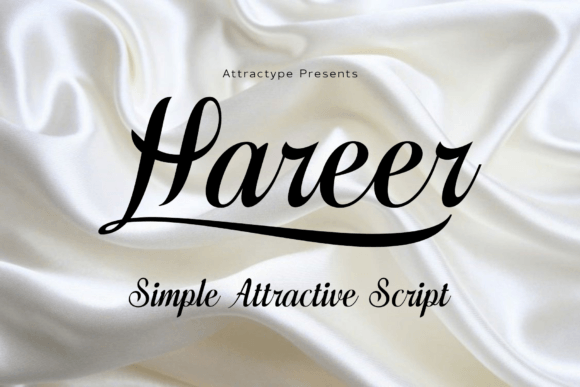
Have you ever stared at a blank page, desperately searching for the perfect font to bring your design to life? You know the feeling – it’s like trying to find the missing piece of a puzzle. But what if you stumbled upon a font that makes your text look effortlessly beautiful, every time? Enter the Hareer Font, a stunning script font designed to elevate your creative projects.
This gorgeous font is more than just a pretty face; it’s a versatile tool that can be used for a wide range of applications, from posters and invitations to business cards and logos. And with its unique features like Stylistic Set of capital letters and ligatures, you’ll have endless possibilities to express your creativity. For designers, the Hareer Font is a valuable addition to their toolkit, offering a fresh and modern look that’s sure to impress.
Hareer Font Key Features
- Font Family: Hareer is a modern and elegant font family with a total of 6 fonts in the family.
- Unique Characteristics: Hareer font features a unique combination of Arabic and Latin scripts, making it a versatile font for multilingual designs.
- Language Support: Supports multiple languages, including Arabic, English, and many others.
Hareer Font Review
I recently had the chance to work with the Hareer Font, and I must say, it’s a mixed bag. Here’s my honest take.
- The Hareer Font has a beautiful, elegant script that’s perfect for creating a sophisticated and luxurious feel in your designs.
- The font is highly legible, even at smaller font sizes, making it a great choice for body text or smaller headings.
- The font’s OpenType features allow for some amazing ligatures and swashes, which can add an extra layer of sophistication to your designs.
- The Hareer Font is a script font, which means it may not be the best choice for text-heavy designs or projects where readability is a top priority.
- The font’s italic and bold weights are a bit inconsistent, which can make it difficult to create a cohesive look across different elements of your design.
Overall, I think the Hareer Font is a great choice for designers who want to add a touch of elegance and sophistication to their projects. However, it may not be the best fit for every project or design style. With a bit of caution and careful planning, I think this font can be a real showstopper.
The Hareer Font is a modern, elegant script font suitable for various design applications, including:
– Luxury branding and packaging
– Fine art and creative projects
– Fashion and beauty designs
To get the most out of the Hareer Font, experiment with different font sizes, colors, and styles to create unique and eye-catching designs.